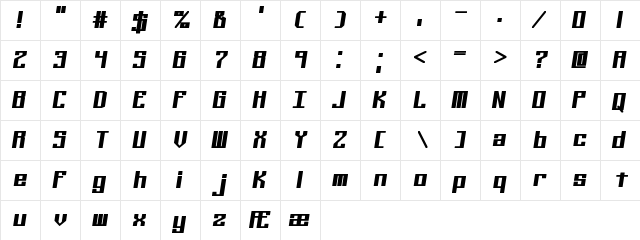
Kaliber Solid BRK Regular
Design Context for Kaliber Solid BRK Typeface
Kaliber Solid BRK is a composed and adaptable typeface that performs quietly and consistently across a wide range of design contexts.
Pro Tip: Use Kaliber Solid BRK in both headline and body roles to test its range before committing to a single application.